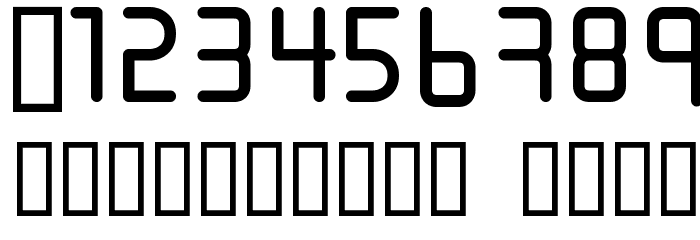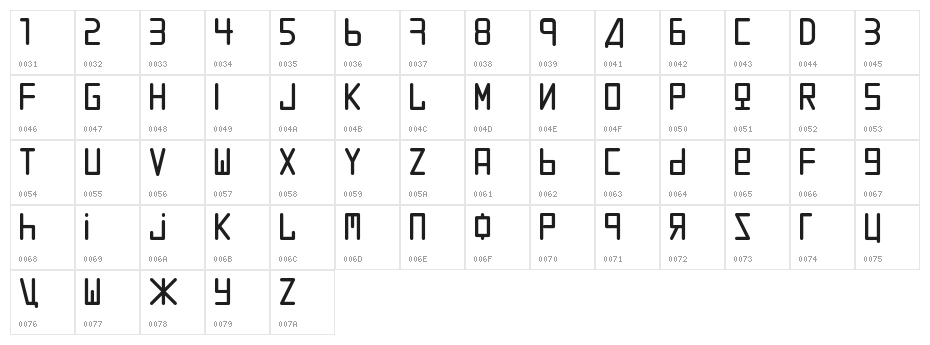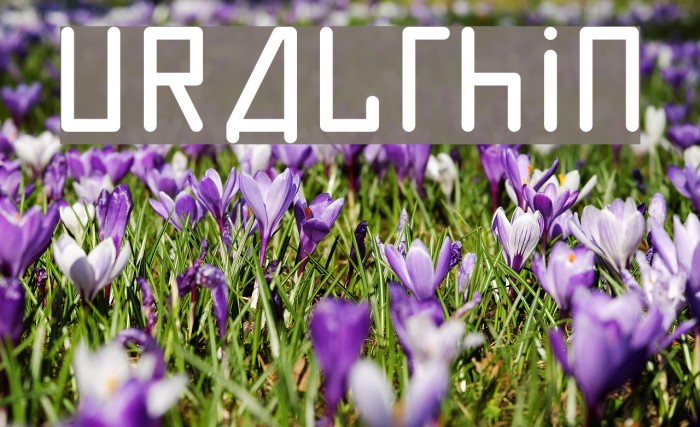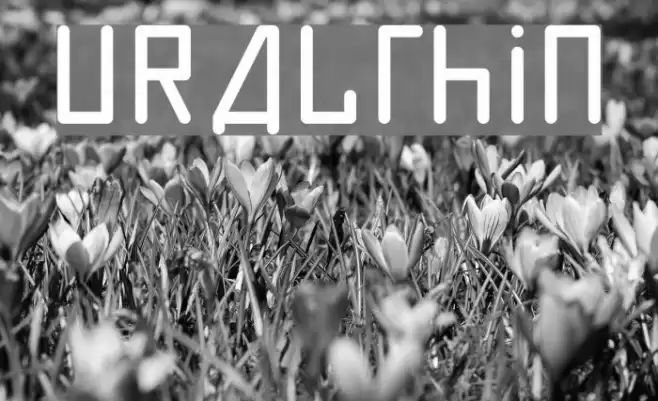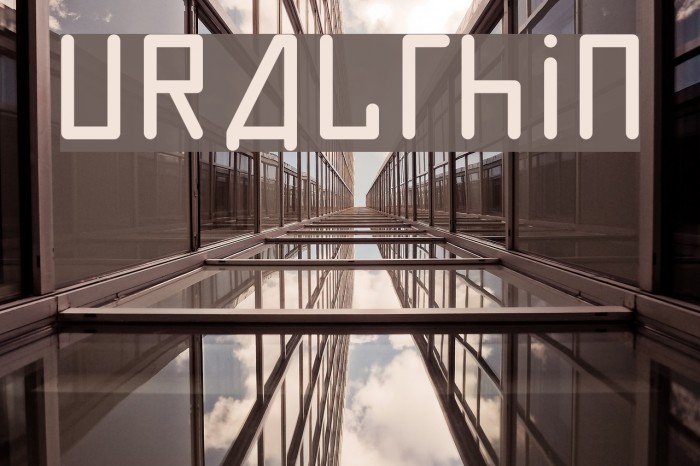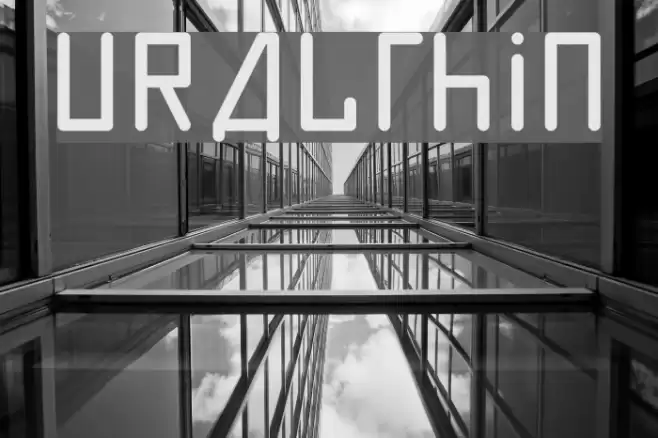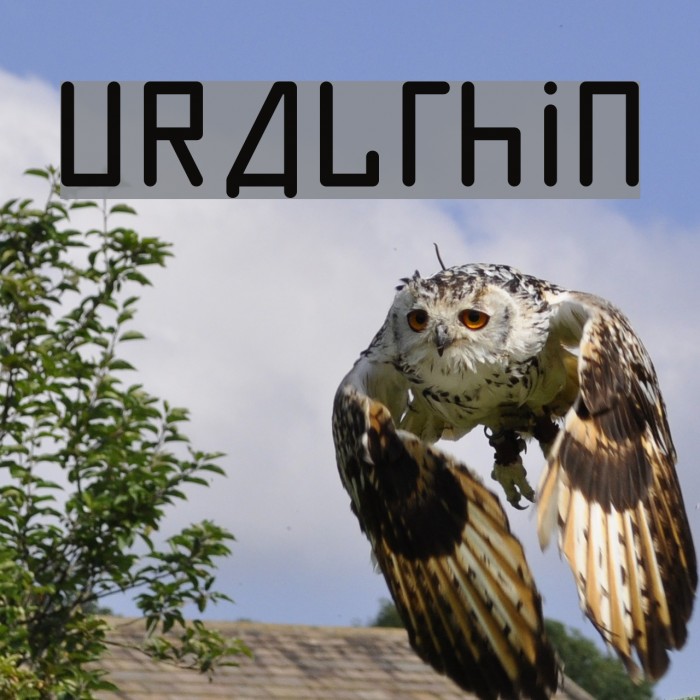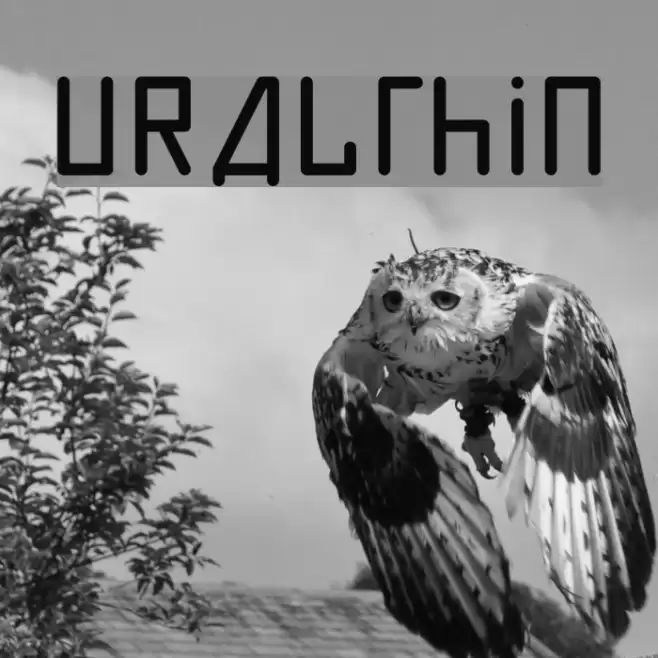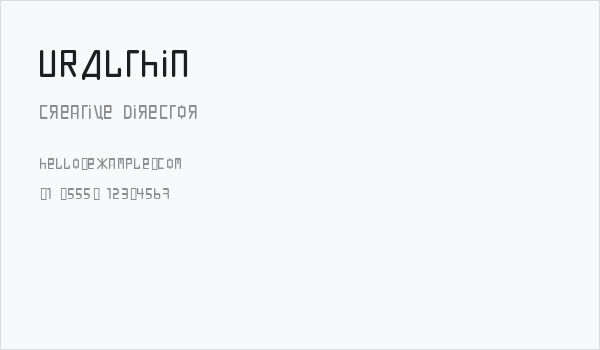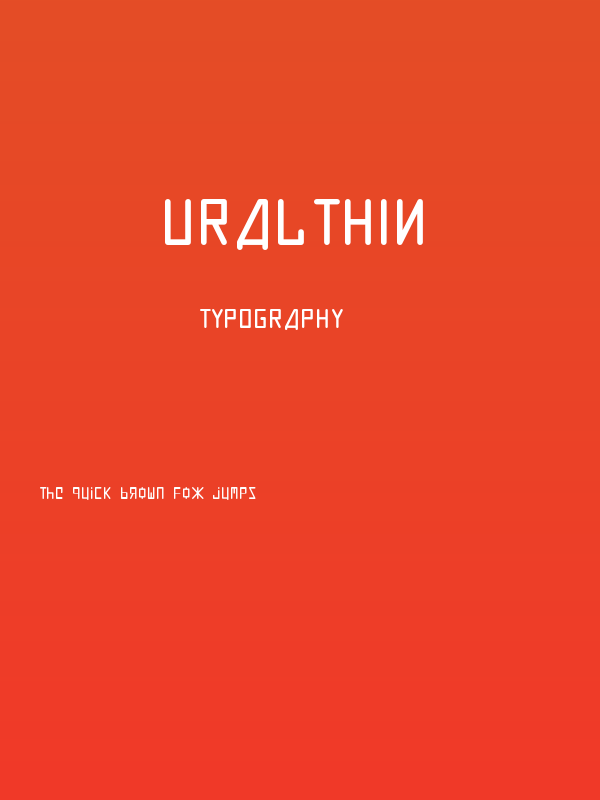
URALthin Font
URALthin Description
This font features a modern, geometric design with a distinctively clean and minimalistic appearance. The characters are constructed with uniform line thickness, creating a cohesive and structured look. The uppercase letters are bold and assertive, while the lowercase letters maintain a consistent style, ensuring readability. The numerals are clear and straightforward, complementing the overall aesthetic. Special characters are designed with the same geometric precision, making this font versatile for various applications. Its simplicity and clarity make it suitable for both digital and print media.
| Use Case | Headlines, Logos, Digital Interfaces |
| Proposed Projects | Ideal for tech branding, digital interfaces, modern posters, and minimalist design projects. |